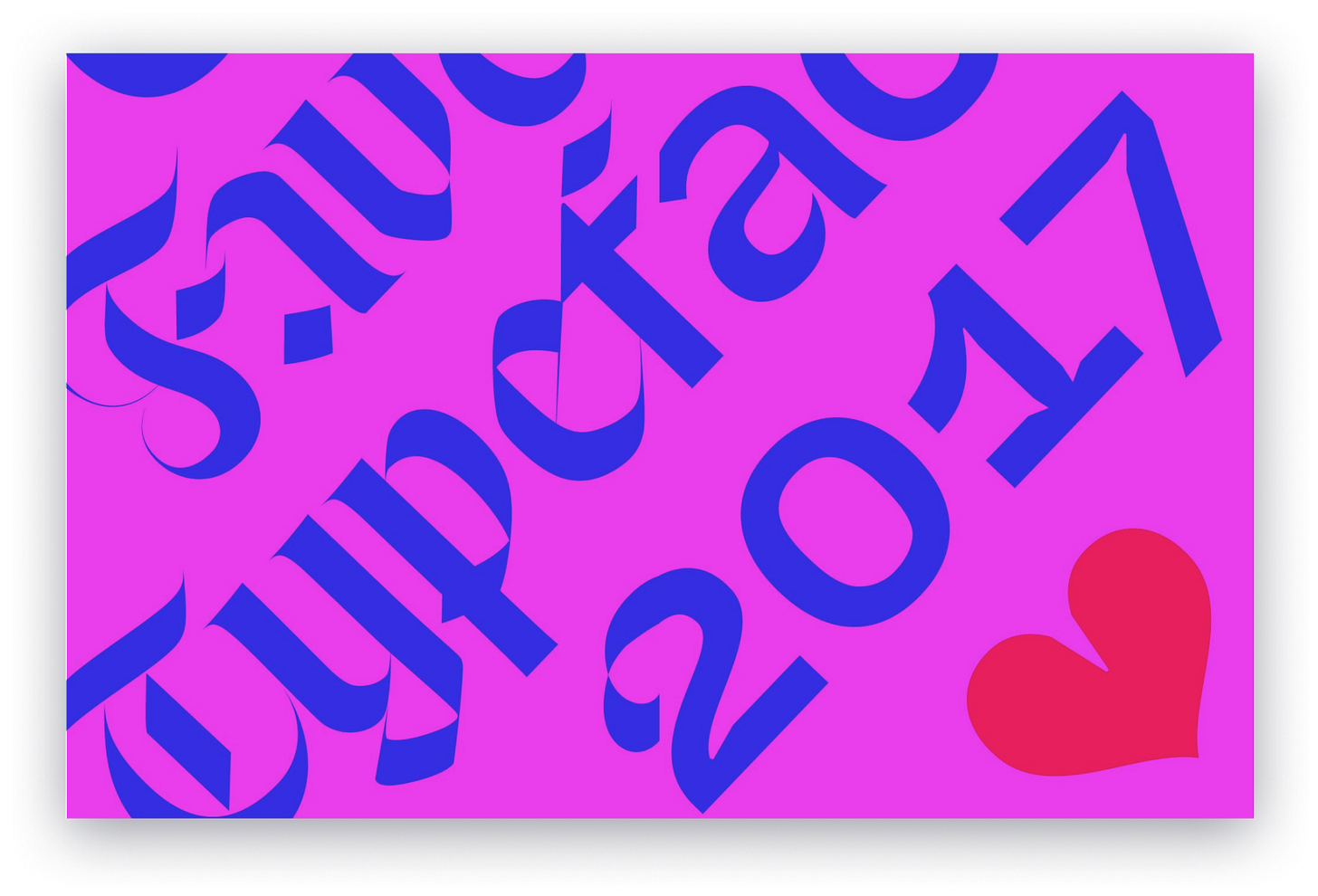
Tactility & Colour 🎨
👀 Tactile Typography 👀
IS BRAILLE TYPOGRAPHY? People think of Braille as many things, some assume it's a language. Others consider it a writing and reading system for the blind. Many look at the confounding raised dots and wonder how anyone could make sense of them. Very few think of Braille as a form of typography.
Should we be embracing a more expansive meaning of typography to mean all forms and impressions of writing? Can you feel, rather than see typography? Cristina Hartmann talks about the Power of Tactile Typography here.
🖋 Face(s) of the Week Year 🖋
TYPOGRAPHICA'S FAVOURITE TYPEFACES OF 2017. Not a list of best. Not a list of top-selling. Not a popularity contest. Not a spon.
Just a list curated by a bunch of fanboys and girls aka Typographica's distinguished group of designers, educators, and enthusiasts. Each taken time away from their day jobs to pen praises for their 2017 favourtites. Read more here.
🎨 The Next Big Thing? 🎨
COLOUR FONTS. Colour fonts use an innovative font technology that allows built-in SVG (Scalable Vector Graphics) to enhance the way the fonts appear. This new standard allows colour information to be stored inside a font and could change the way people interact with type.
You can use fonts anywhere, just like the fonts you’re used to on your computer or website — but since colour fonts are still fairly new, we’re still in the early days of realizing their potential. For instance, the image above is a screenshot from a project I worked on a couple of years back without knowing anything about this technology, but hoping colour fonts could someday be a thing. And here we are!
Read more about colour fonts here and more about how Adobe uses this new technology and the development process for Trajan Color Concept and EmojiOne Color here.